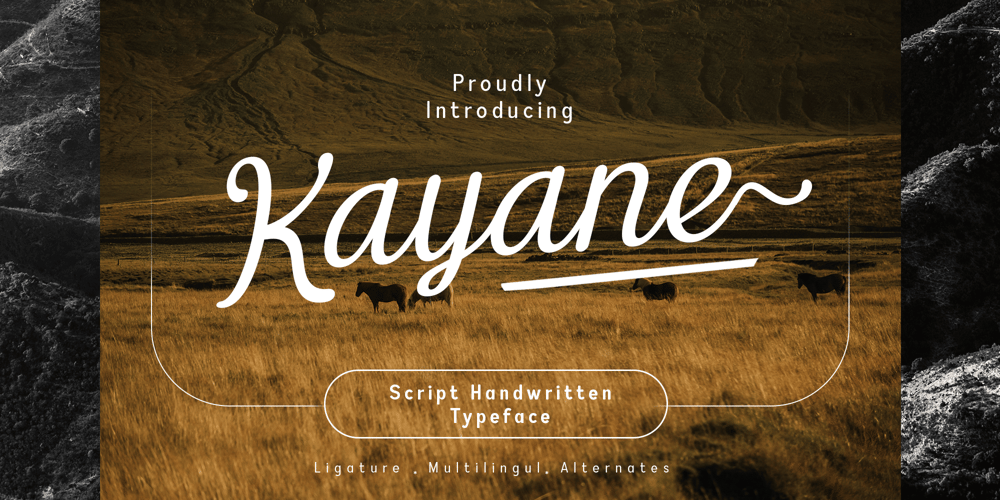
Kayane Font Family was designed by Sidik Sidik and published by Differentialtype. Kayane contains 1 styles and family package options. Kayane is a splendid script font that can be used for branding, greeting cards, wedding invitations, and many other projects. It will add luxury to any design project that you wish to create.